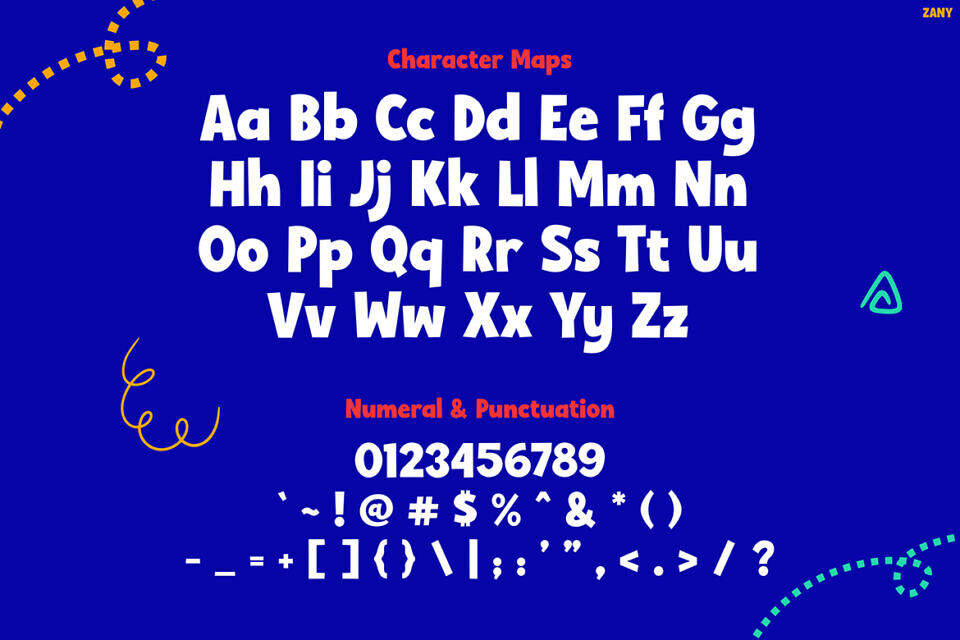
Kids Font Zany is a lively and expressive typeface designed to bring joy to any creative project. With its bold curves, playful angles, and dynamic letterforms, this font captures the vibrant energy of childhood.
Its eye-catching style makes it perfect for use in fun and cheerful design themes. Whether you’re working on a back-to-school banner or kids’ product packaging, Kids Font Zany adds an instant sense of excitement. Moreover, the font’s quirky charm makes it stand out in both digital and print formats.
Kids Font Zany is ideal for designers, educators, and content creators who want to spark happiness through their visuals. For example, it works wonders in school-related designs like posters, name tags, or classroom signs. Additionally, it’s perfect for packaging, especially in products targeting children like snacks, toys, or stationery.